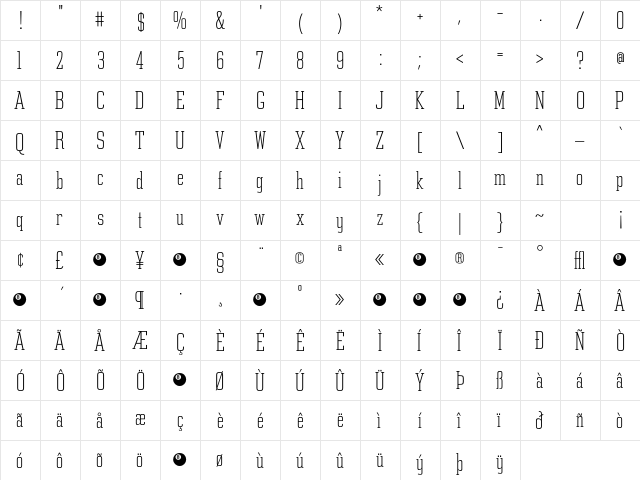
Constructa Thin
Design Context for Constructa Typeface
Constructa offers clean, dependable letterforms without strong stylistic allegiance, making it a practical choice for designers who need flexibility. The delicate stroke weight brings airiness and refinement to layouts.
Pro Tip: Pair Constructa with a font of contrasting weight or personality to build a more expressive typographic hierarchy.